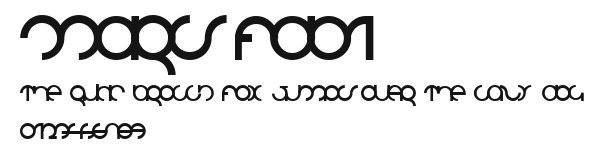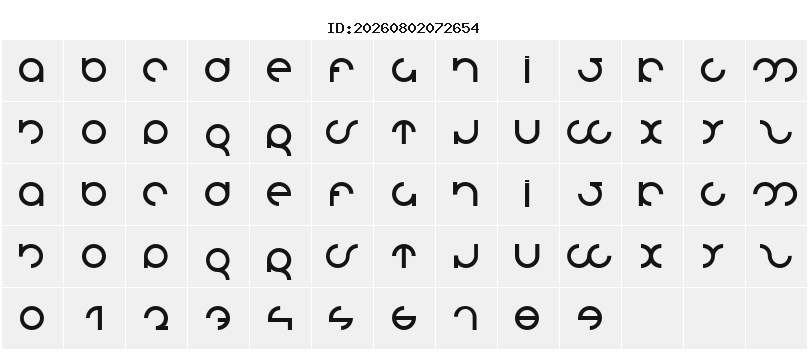
• Font Name: MDRS-FD01
MDRS-FD01.ttf is a modern, elegant sans-serif font designed for ultimate readability and visual harmony. Perfect for branding, headlines, web design, and print materials.